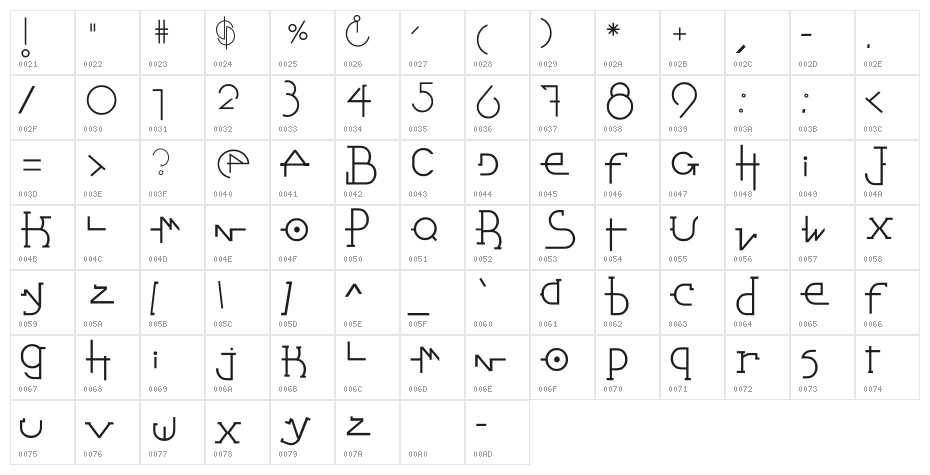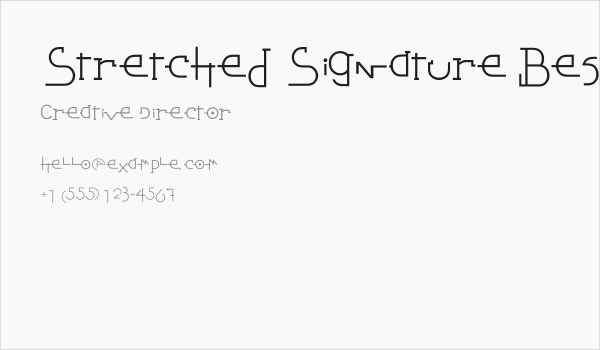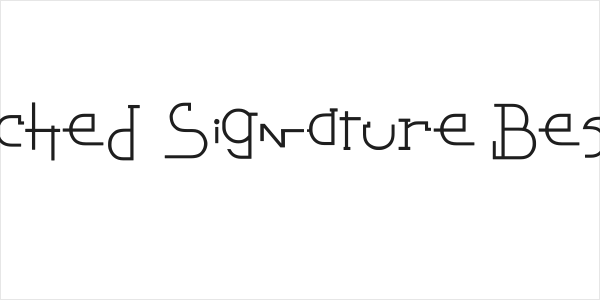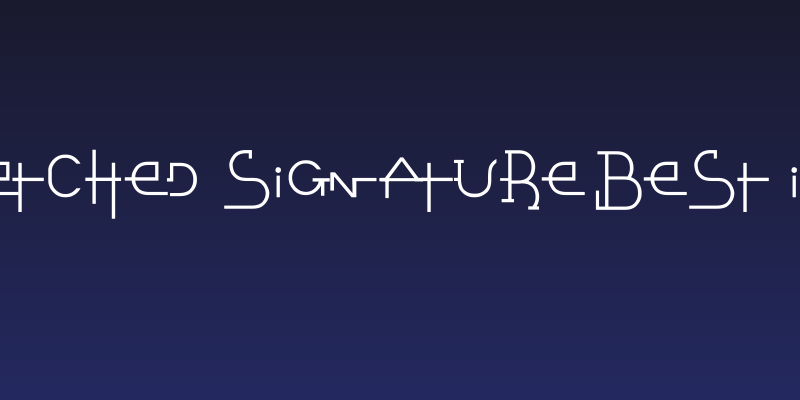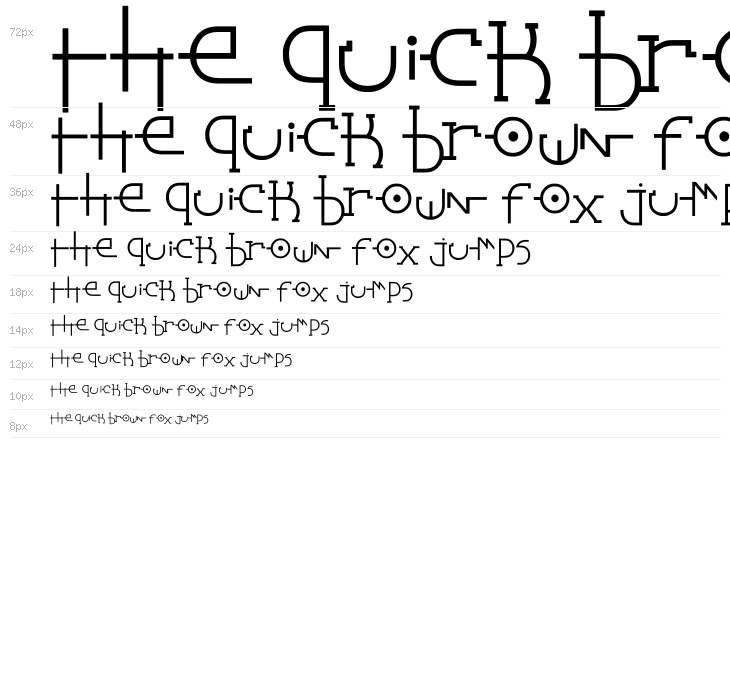
Stretched Signature Best Italic Font
Stretched Signature Best Italic Description
This font features a unique and artistic design with a modern twist. The characters are composed of geometric shapes and lines, creating a futuristic and abstract appearance. The uppercase and lowercase letters maintain a consistent style, with some letters incorporating circular elements and angular cuts. The numbers and special characters follow the same design principles, ensuring uniformity across the font. The overall look is sleek and minimalistic, making it suitable for creative and contemporary projects.
| Use Case | Logos, Posters, Creative projects |
| Proposed Projects | Ideal for branding, logos, and modern art projects that require a distinctive and creative typeface. |